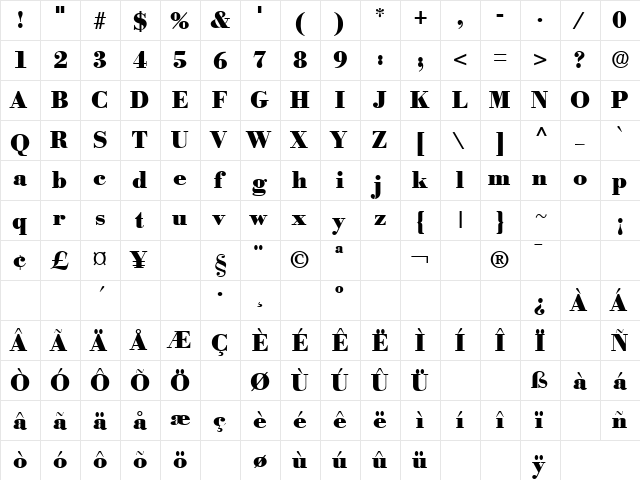
Buckeye Regular Font Preview
Buckeye Regular
Buckeye Regular Font Details
Design Context for Buckeye Typeface
Buckeye is a composed and adaptable typeface that performs quietly and consistently across a wide range of design contexts.